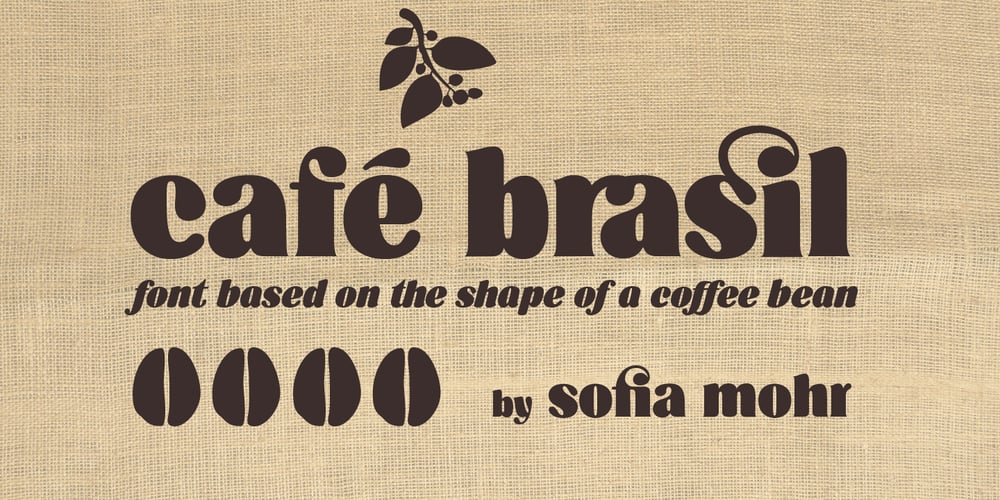
Café Brasil
Café Brasil font
Café Brasil Font Family was designed by Sofia Mohr and published by Sofia Mohr. Café Brasil contains 2 styles and family package options. Café Brasil is a font designed to represent coffee, especially for use in packaging, brand titles, logos and menus. Based on the shape of a coffee bean, Café Brasil has delicate details and ligatures that represent the liquid, foam and steam of a good cup of coffee. In March 2014, Café Brasil was chosen to be part of the main exhibition at the “Tipos Latinos 2014”.